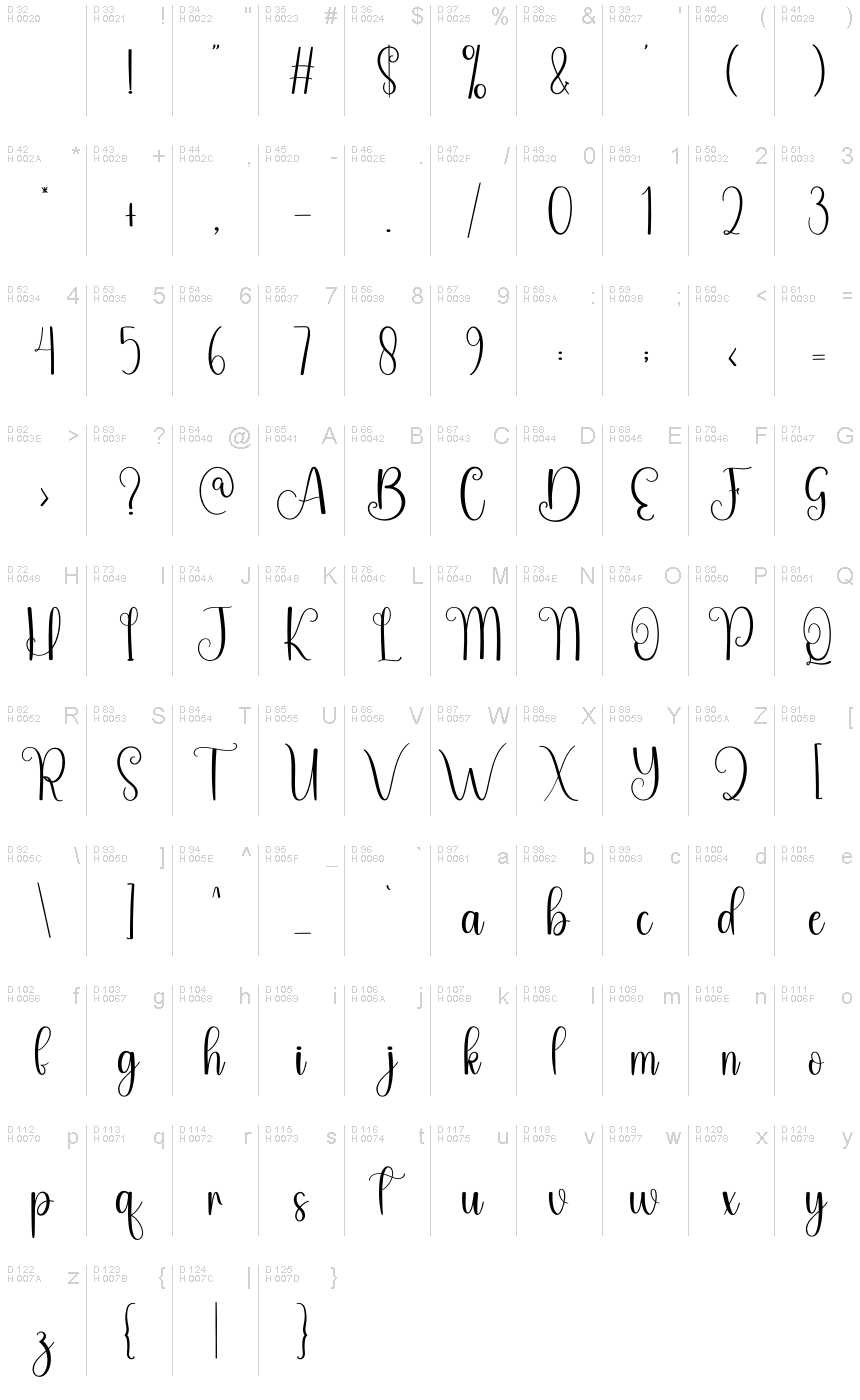
Sweety Love
Sweety Love is a captivating calligraphy-inspired font designed by Andi Moz. Its light, whimsical strokes emanate a sense of warmth and affection, making it an excellent choice for projects that require a touch of romance and elegance. The fluid, script-like nature of the letters evokes a handwritten feel, adding a personalized charm to any design.
This font's versatility shines through its ability to seamlessly transition between formal and casual settings. From wedding invitations and greeting cards to social media graphics and event branding, Sweety Love effortlessly enhances the aesthetic appeal, imbuing each application with a playful, yet refined, atmosphere.